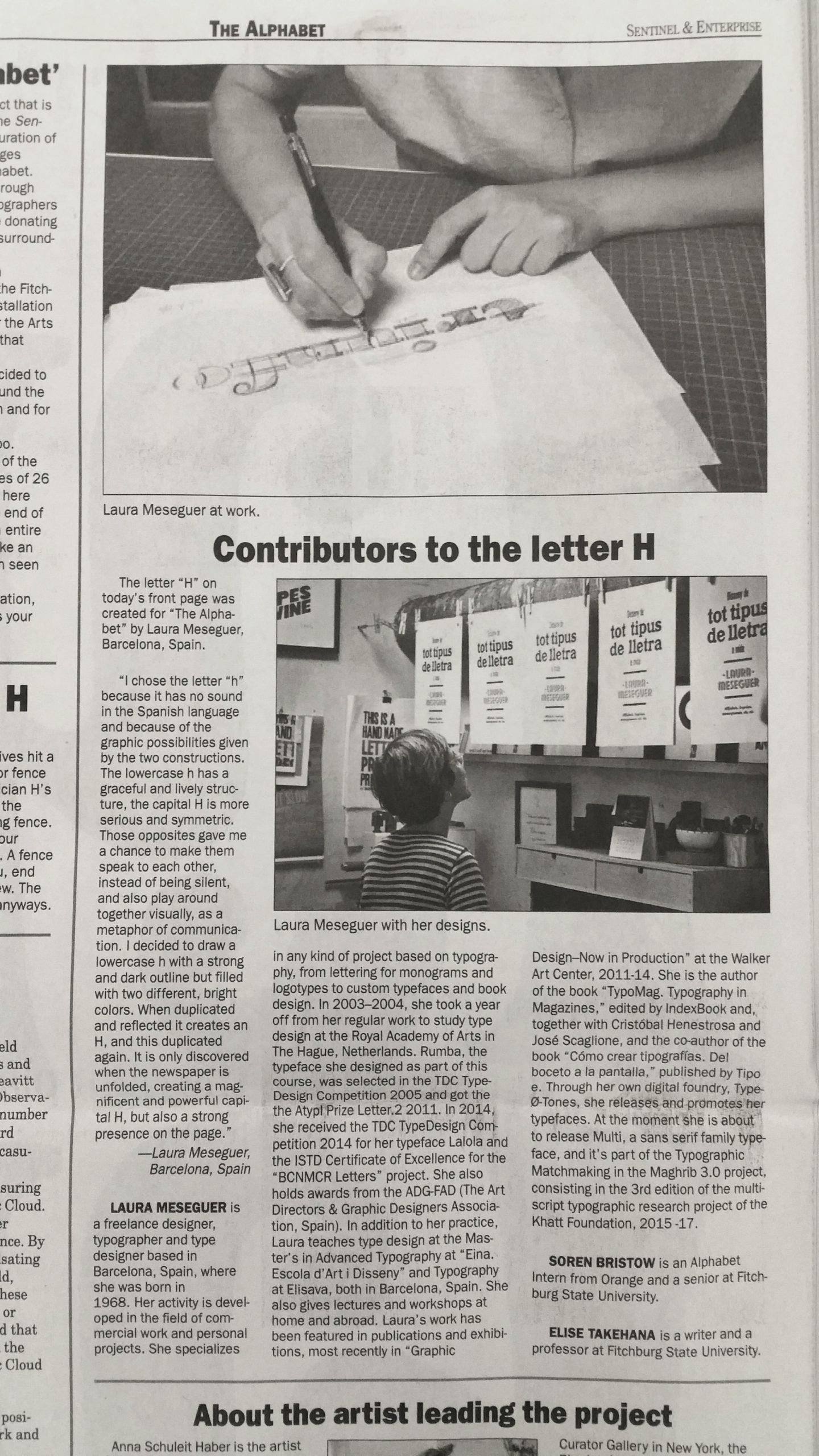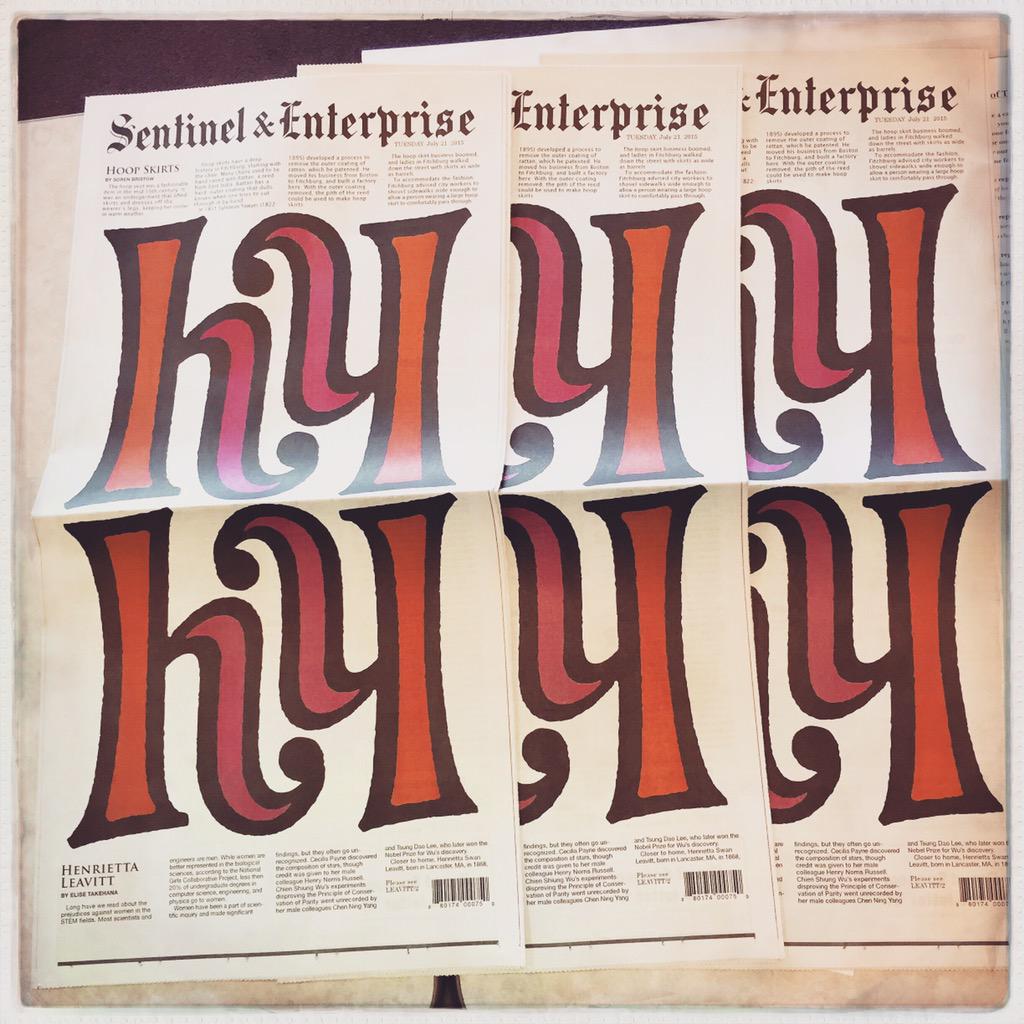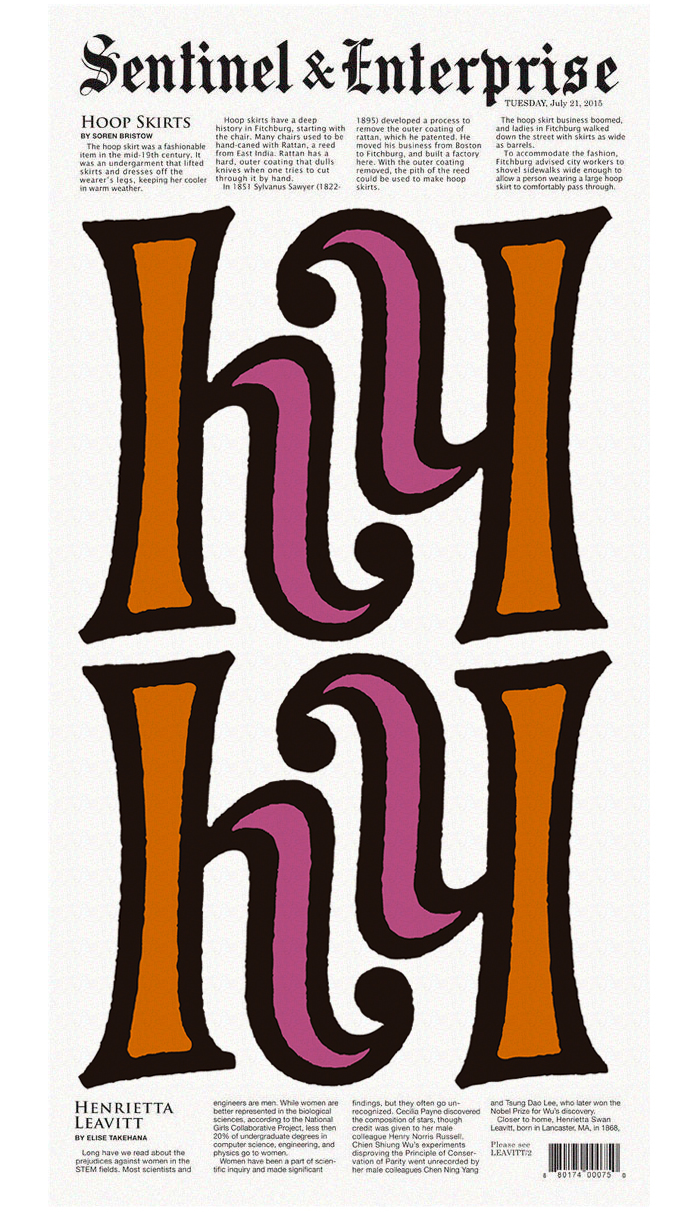
“The art is the newspaper + the newspaper is the art.”
This lettering project is part of the Anna Schuleit Haber’s public art project called “The Alphabet”. The Fitchburg Art Museum commissioned artist Anna Schuleit Haber to create a new work for the city of Fitchburg, MA, for which she proposed (and received the permission) to take over the front page of the city’s daily newspaper, the Sentinel & Enterprise, for 26 days. It is a project for the city of Fitchburg, MA (USA), revolving around the daily newspaper, a collaborative alphabet, an embedded visiting artist, a special group of reporters, and 26 typographers from around the world.
The concept of the “h”
Laura chose the letter “h” because it has no sound in the Spanish language and because of the graphic possibilities given by the two constructions. The lowercase h has a graceful and lively structure, the capital H is more serious and symmetric. Those opposites gave me a chance to make them speak to each other, instead of being silent, and also play around together visually, as a metaphor of communication. I decided to draw a lowercase h with a strong and dark outline but filled with two different, bright colors. When duplicated and reflected it creates an H, and this duplicated again. It is only discovered when the newspaper is unfolded, creating a magnificent and powerful capital H, but also a strong presence on the page. The paper has a weekday print run of 14,000 copies and many readers shared their photos of those covers as seen in their daily lives, fact that contributed even more to the purpose of the project.
The Alphabet ran from July 13 until August 11 and featured all 26 letters on the front page. Laura’s letter appeared on the 21st of July 2015 on the Sentinel & Enterprise. Laura was invited to participate in this project thanks to the recommendation of Cyrus Highsmith, one of her most admired type designers.
For the duration of The Alphabet, Anna Schuleit Haber will serve as an embedded artist at the Sentinel & Enterprise together with her interns taking the roles of reporters and designers for what is hoped is the paper’s most unusual run of front pages in its 177-year old history.
Each typographer was encouraged to make the letter as idiosyncratic and unusual, as legible or abstract, as colorful or monochromatic as is inherent to his or her style and wider creative approach. The aim is to assemble the most diverse and far-reaching collaborative alphabet ever created for the front pages of a daily newspaper.
H – Laura Meseguer, Barcelona, Spain
Letters as big and bold as the entire newspaper page, reminiscent of illuminated letters, are intended to inspire a second and third glance from readers. After twenty-six days, any loyal reader of the paper will have a complete limited-edition set of front pages.